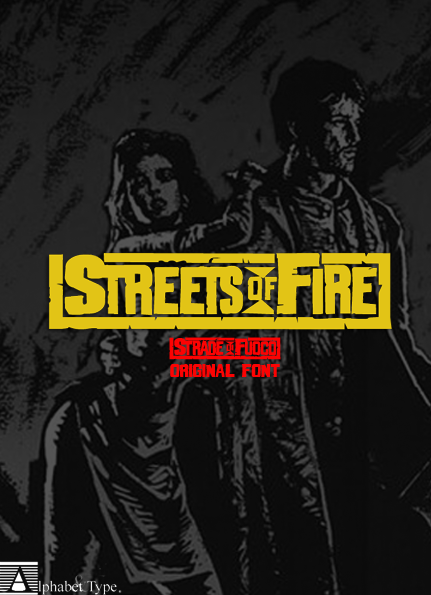
Preview and download Strade di Fuoco Font. Created by Alphabet & Type in Fancy Eroded styles with 100% Free license.
STREETS OF FIRE font: directly from the Best movie by Walter Hill, with Diane Lane, the original font for all lovers. |